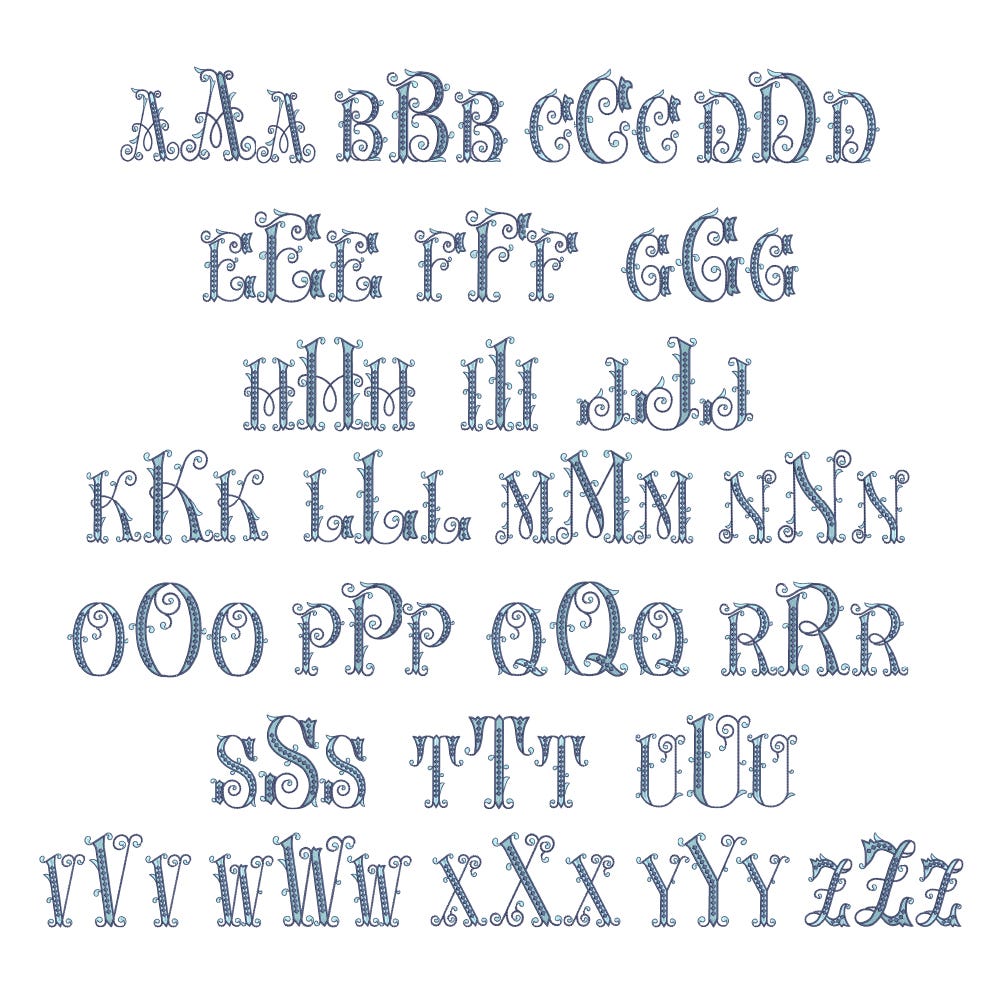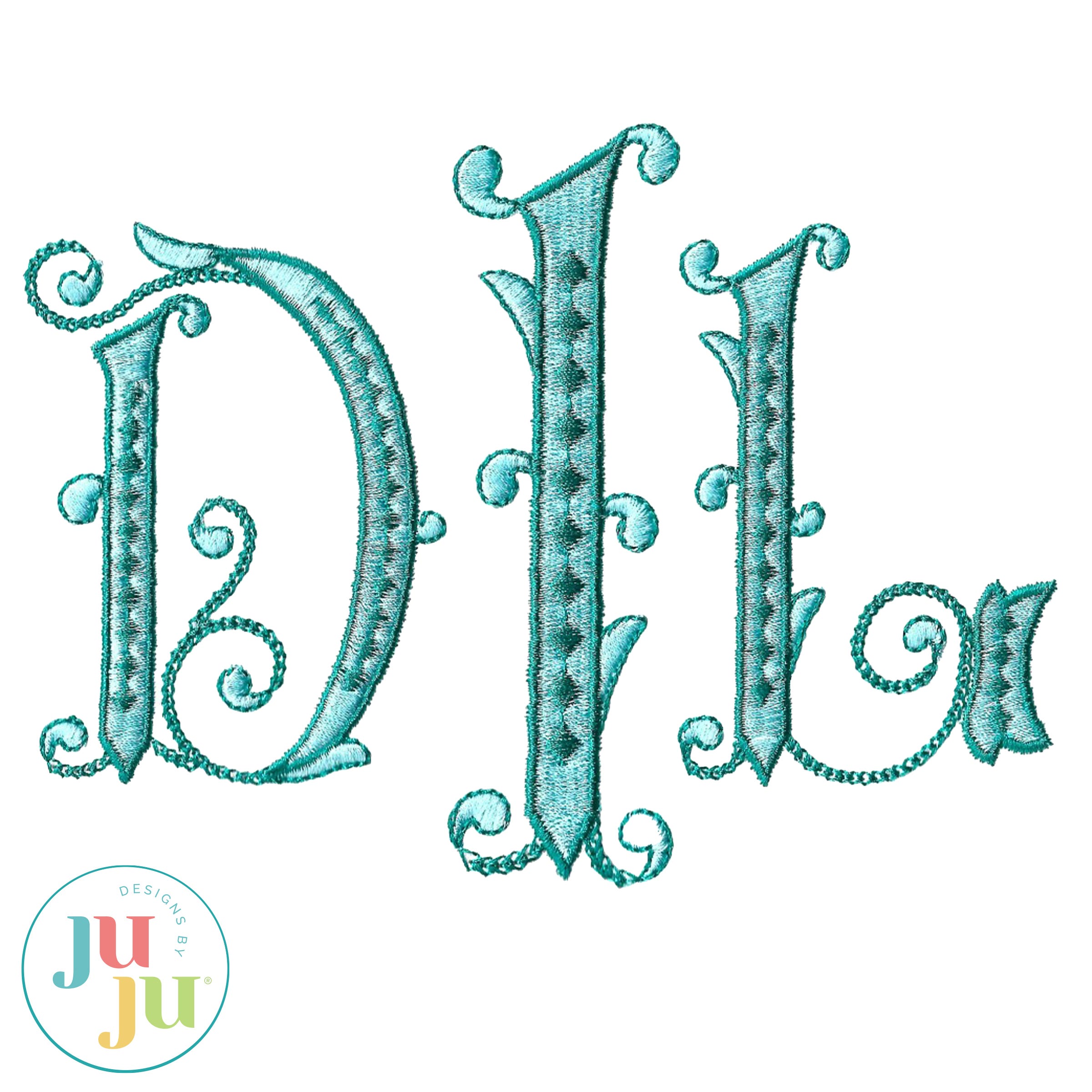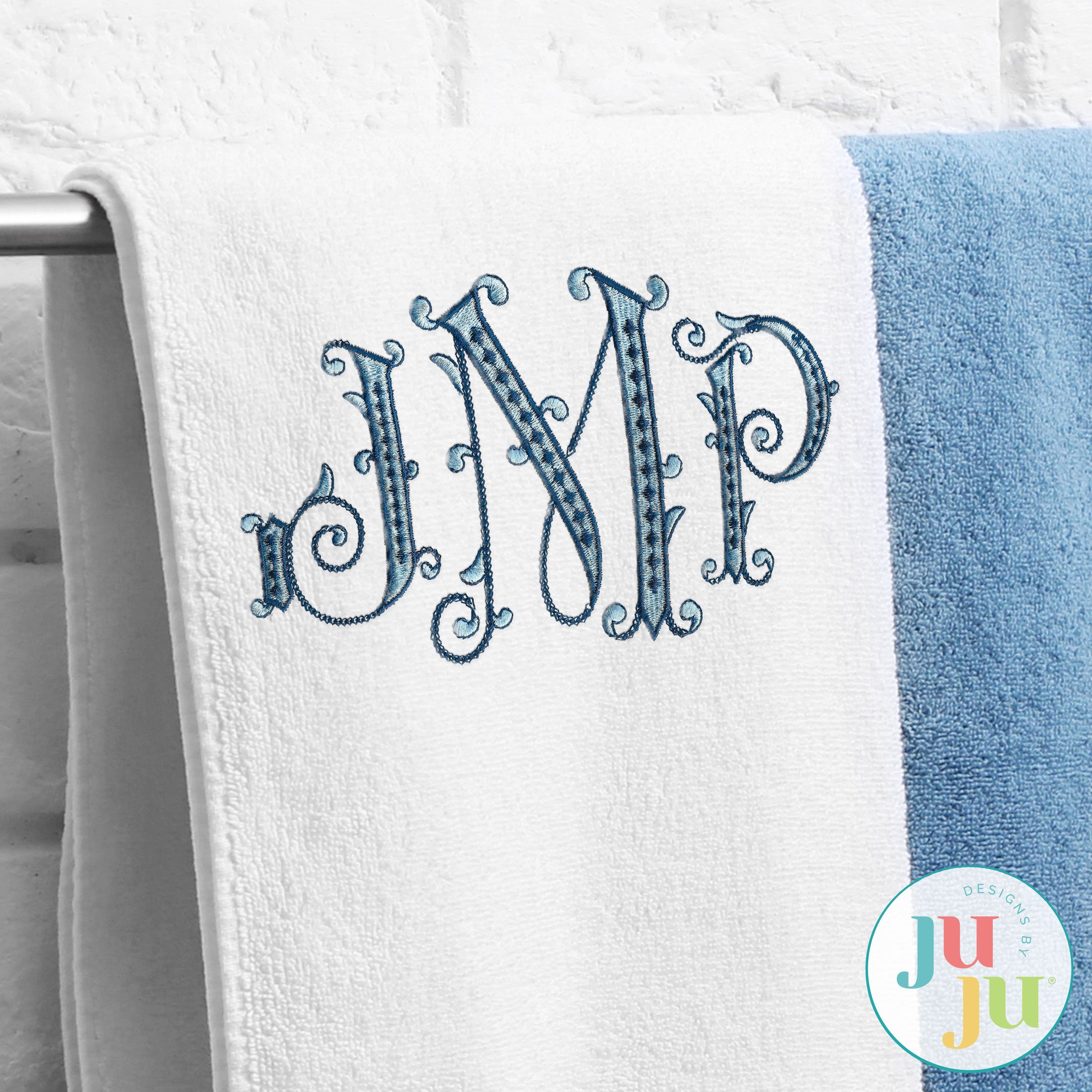
Baroque Beauty Monogram Embroidery Font
Our elegant, embroidery-only, Baroque Beauty Monogram features a two-color blend of fill stitch lettering with satin stitch outlines, accented with satin stitch diamonds, chainstitch swirls, and other lovely details.
Each size of the monogram has a larger center letter intended to go in the middle of the monogram and a smaller side letter intended to go on both the left and right.